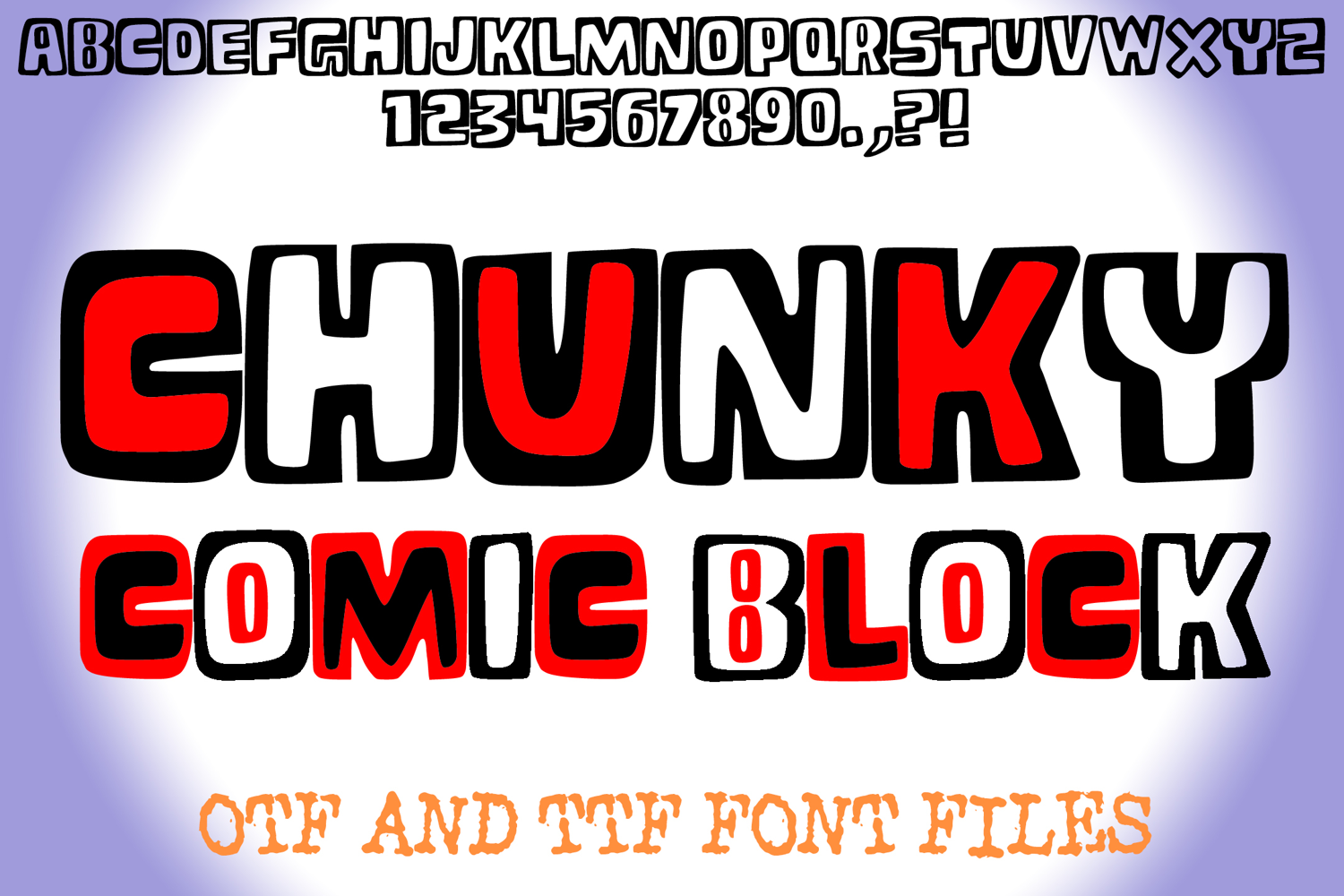
Chunky Comic Block Lettering ABC Font Typography Text
Introducing the Chunky Comic Block Font – a bold and playful typeface that’s perfect for fun, eye-catching designs. With its chunky block letters and comic-inspired style, this font adds a cheerful, quirky, and creative vibe to any project.
The Chunky Comic Block Font includes uppercase letters, numbers, and punctuation, all crafted with thick outlines and bold shapes that make your text stand out. It’s ideal for children’s designs, comic book titles, posters, logos, invitations, stickers, scrapbooking, crafting projects, and digital artwork.
Bring energy and creativity to your projects with the Chunky Comic Block Font – the perfect typeface for playful, comic-style designs!